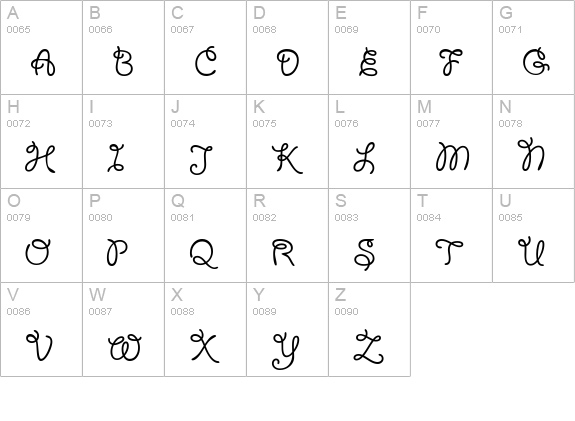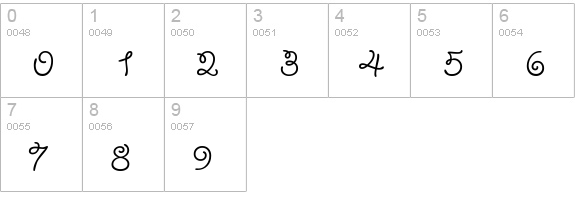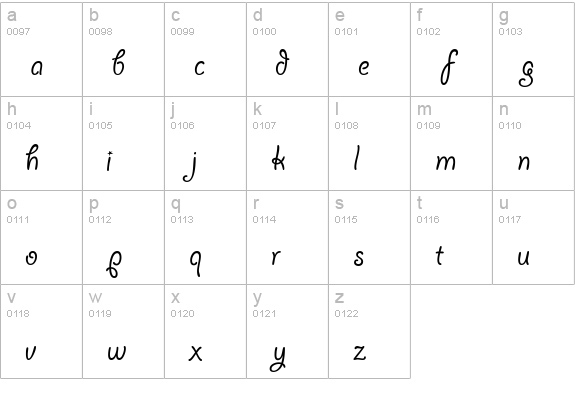
LariatLight Font Details
Introducing LariatLight, a captivating and elegant font that effortlessly combines modern sophistication with a touch of timeless charm. With its flowing curves and delicate serifs, LariatLight is sure to add a touch of refined elegance to any project. This versatile font is perfect for a wide range of design applications, from branding and logo design to editorial layouts and social media graphics. Its clean and legible letterforms make it ideal for both display and body text, ensuring that your message is conveyed clearly and stylishly. LariatLight is freely available to download at FontsMarket.com, making it accessible to designers and creatives of all levels. Whether you're a seasoned professional or just starting out on your design journey, this font is a valuable addition to your toolkit. Embrace the freedom of creativity with LariatLight. Its graceful curves and exquisite details will bring a touch of sophistication to your designs, while its versatility ensures that it can adapt to any project or style. Elevate your designs to new heights with this stunning font, and let your imagination run wild. Download LariatLight for free at FontsMarket.com and unleash the full potential of your design projects. Stand out from the crowd and make a lasting impression with this remarkable font. Get ready to captivate your audience with LariatLight's timeless beauty and effortless grace.